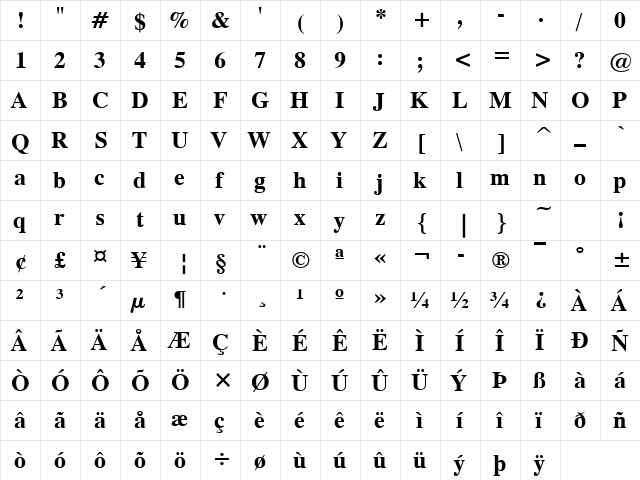
Tiempo Bold
Design Context for Tiempo Typeface
Tiempo is a composed and adaptable typeface that performs quietly and consistently across a wide range of design contexts. Its bold stroke weight gives it real presence on the page.